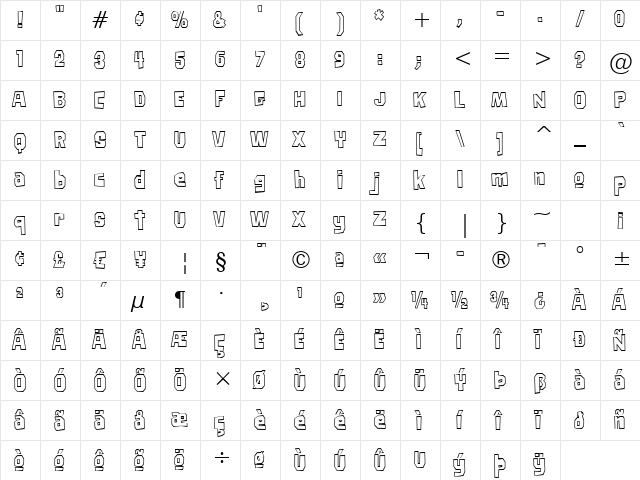
Big Chump BTN Cond Out Regular
Design Context for Big Chump BTN Cond Out Typeface
Big Chump BTN Cond Out offers clean, dependable letterforms without strong stylistic allegiance, making it a practical choice for designers who need flexibility. Its narrow stance lets it pack a punch even in space-constrained designs.
Pro Tip: Pair Big Chump BTN Cond Out with a font of contrasting weight or personality to build a more expressive typographic hierarchy.